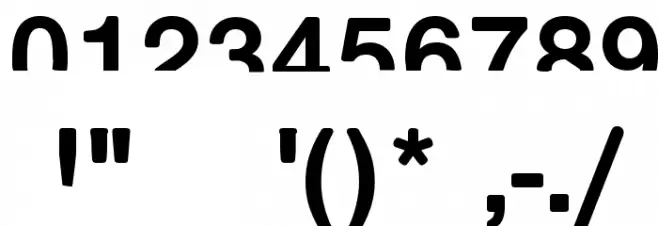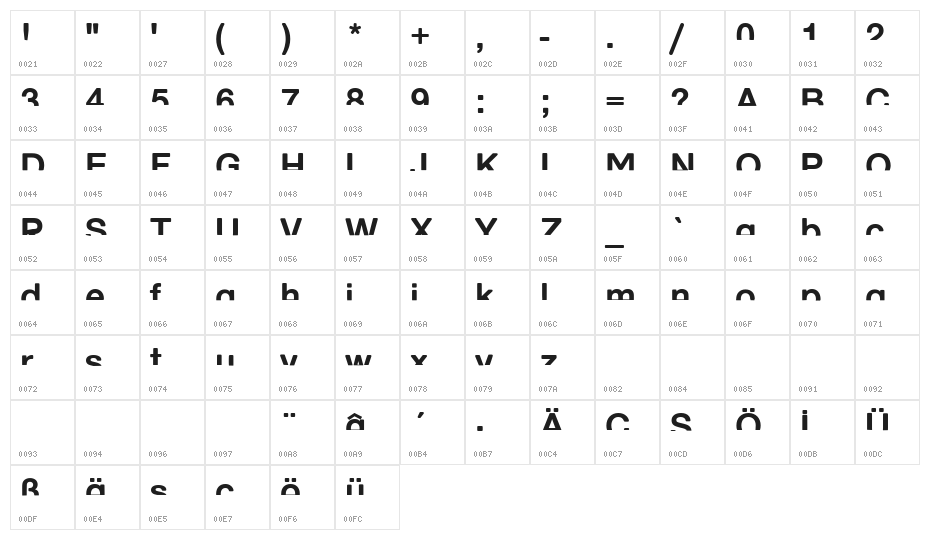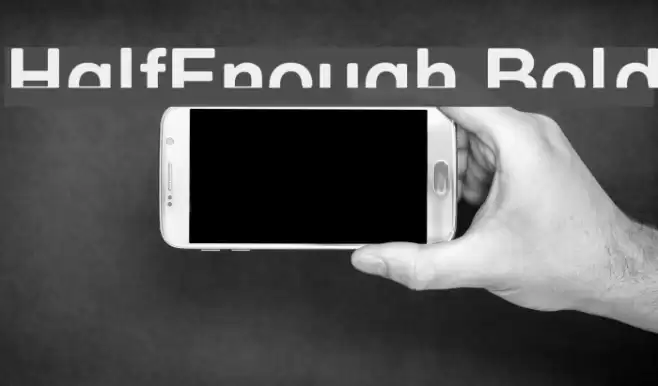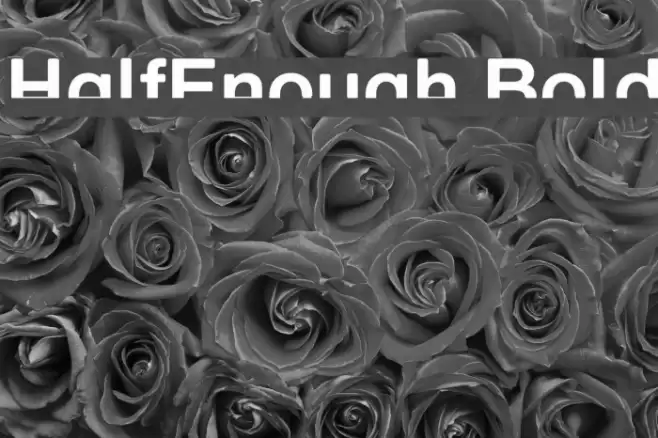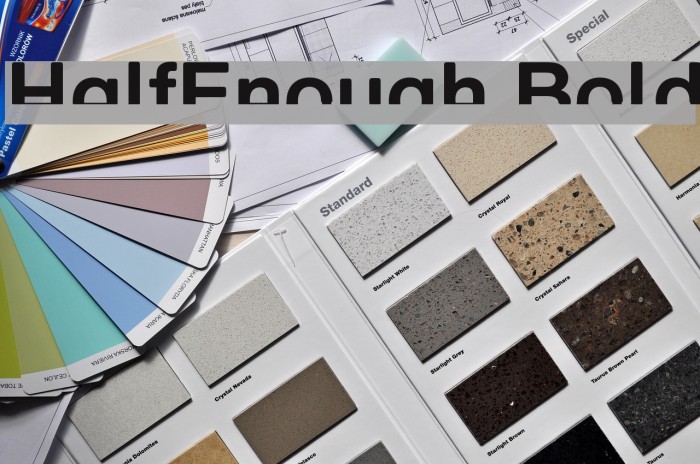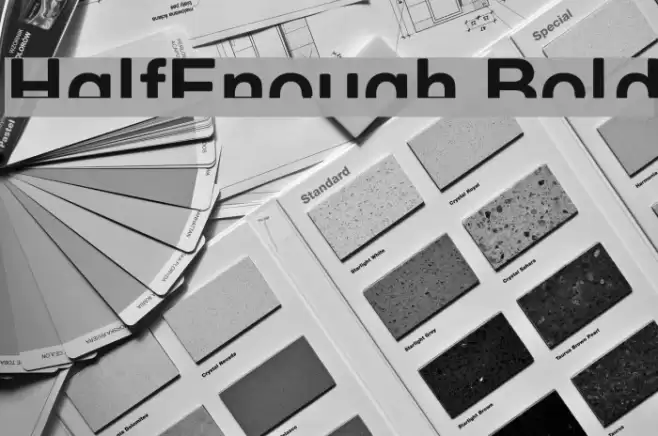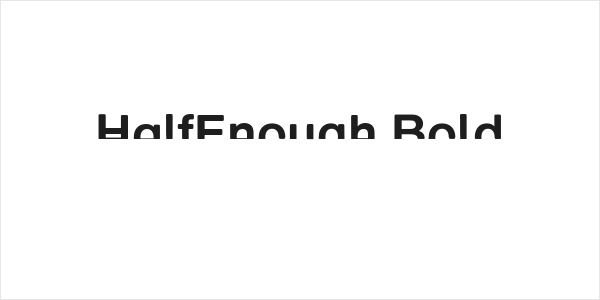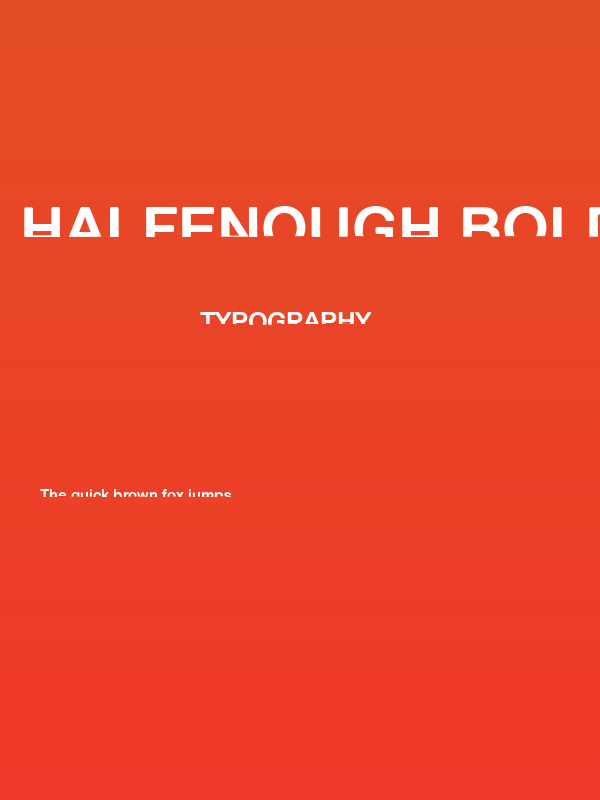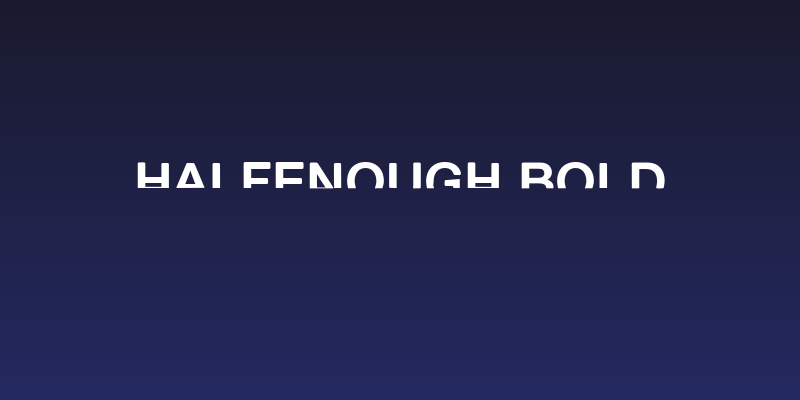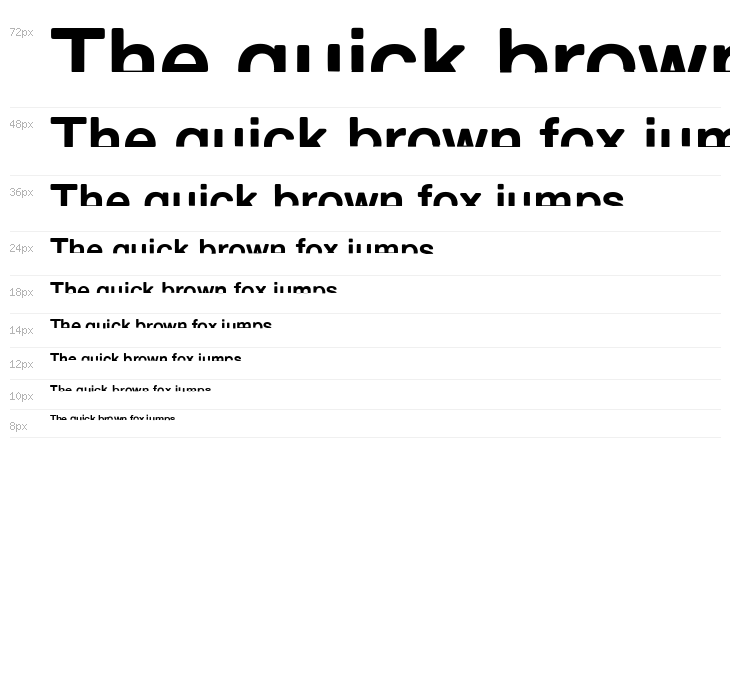
HalfEnough Bold Font
HalfEnough Bold Description
This font features a bold and modern design with a unique twist. Each character is partially filled, creating a striking visual effect that draws attention. The uppercase letters are particularly distinctive, with clean lines and geometric shapes that give them a futuristic feel. The lowercase letters maintain a consistent style, complementing the uppercase with their rounded forms. Numbers and special characters are designed to match the overall aesthetic, ensuring a cohesive look across all text. The font's boldness makes it ideal for headlines and display purposes, where impact is essential.